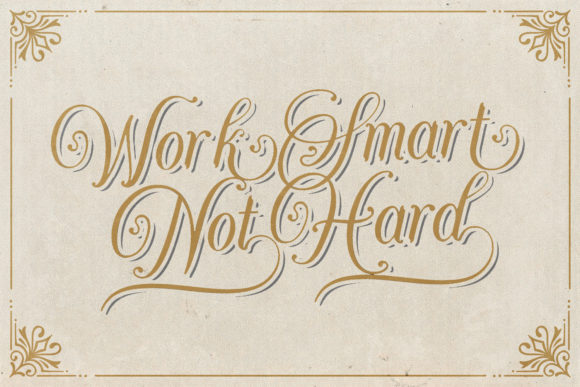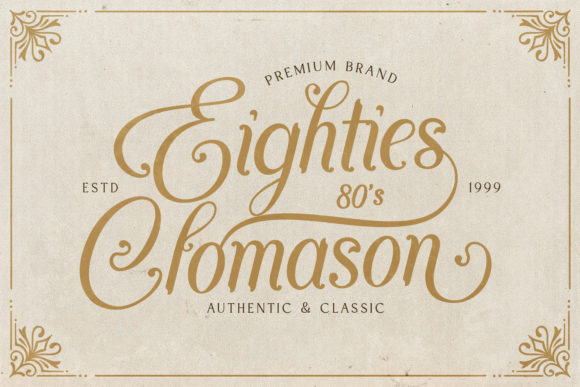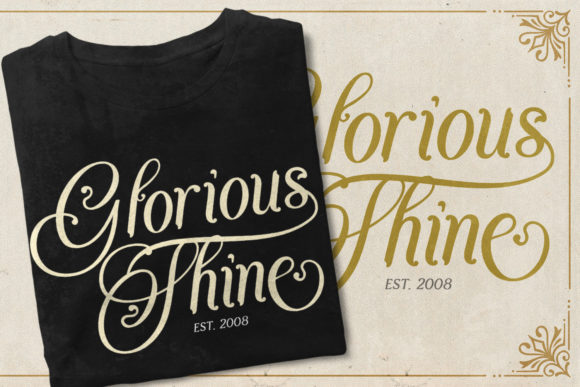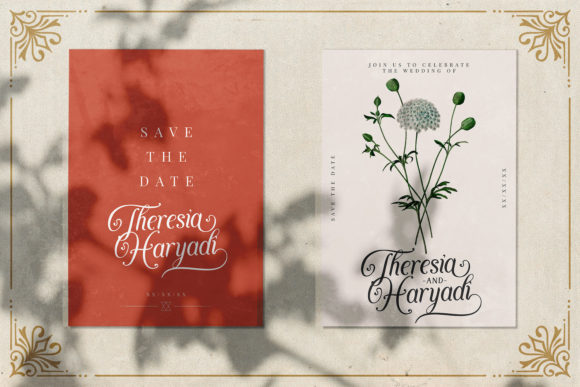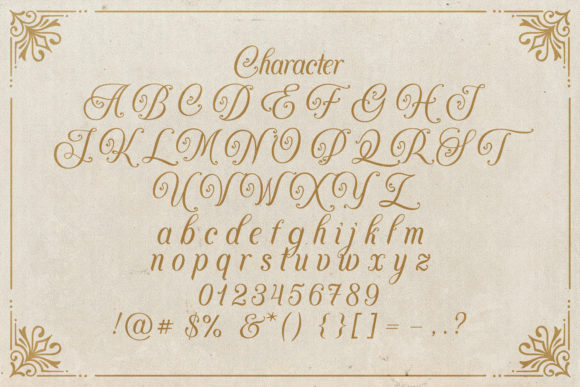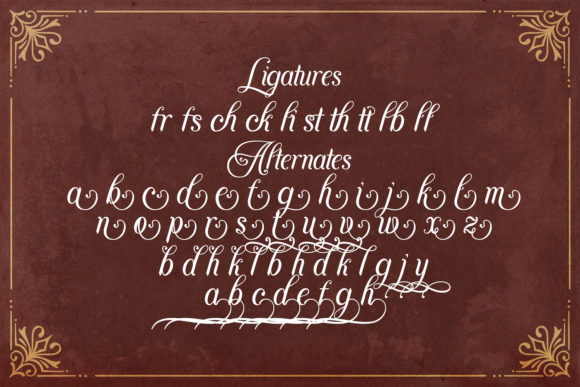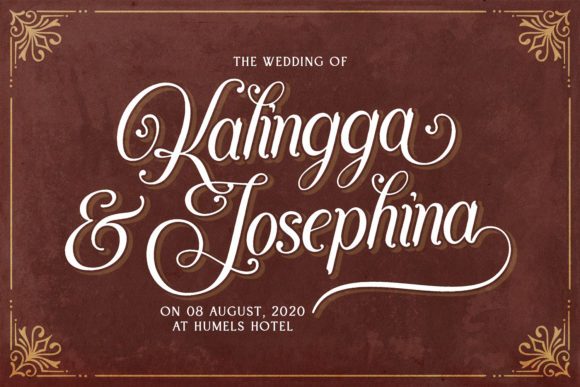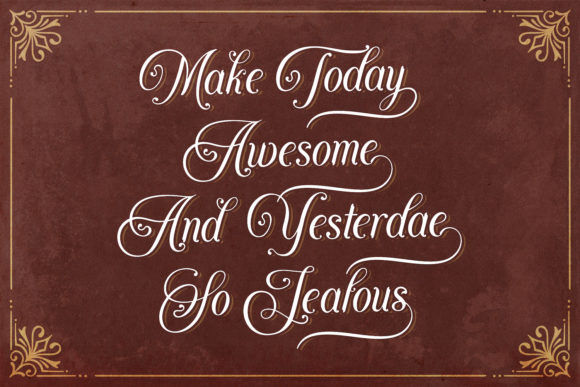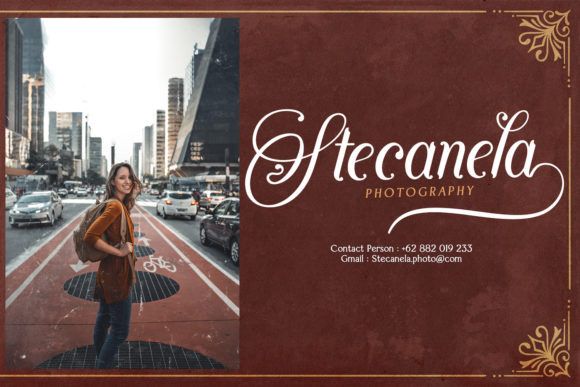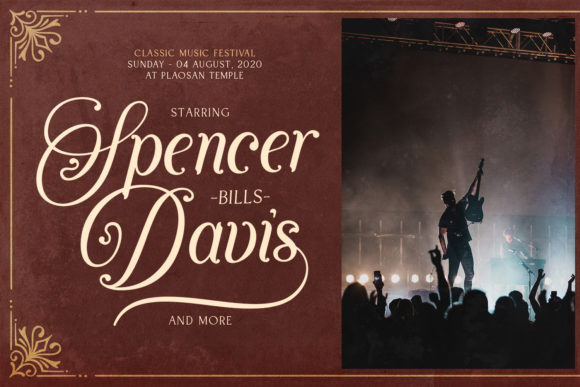
Agenda King Font
About Agenda King Font
Introducing Agenda King, a charming and elegant handwritten font that exudes sophistication and grace. This font is a true gem, thoughtfully designed to add a touch of timeless elegance to any project. With Agenda King, you’ll fall in love with its incredibly versatile style, empowering you to create gorgeous wedding invitations, beautiful stationary art, eye-catching social media posts, and so much more!
Agenda King’s charming and elegant style creates an air of refinement and allure. Each letter flows effortlessly, as if penned with the grace of a regal hand. Whether you’re working on wedding invitations, love letters, inspiring quotes, or any other creative endeavor, Agenda King adds a touch of timeless beauty that captivates and enchants.
The font’s versatility knows no bounds. As you embrace Agenda King, you’ll discover how seamlessly it complements a wide array of design projects. From elegant wedding invitations to luxurious stationary art, and from eye-catching social media posts to sophisticated branding, Agenda King’s versatility empowers you to create stunning visuals with ease.
Imagine using Agenda King to create captivating typography art. Its charming and elegant style becomes a centerpiece, adding a touch of sophistication and allure to your designs. Let your creativity flow, and watch as your artwork comes alive with timeless beauty.
For wedding invitations that exude regal elegance and timeless allure, Agenda King brings an air of grace and sophistication. Whether it’s an intimate affair or a grand celebration, your invitations will stand out as a royal invitation to cherish.
In the digital realm, Agenda King adds a touch of refinement to social media posts and blog graphics. Its elegant handwritten style resonates with viewers, creating a genuine connection and leaving a lasting impression.
Stationery art becomes a true work of art with Agenda King. Be it cards, prints, or custom designs, the font’s charming and elegant script makes your creations truly stand out, evoking a sense of luxury and beauty.
In conclusion, Agenda King is more than just a font; it’s an embodiment of elegance and charm. With its versatile style and sophisticated allure, Agenda King becomes an invaluable asset for all your design projects. Embrace the charm and versatility of Agenda King and watch as your creations exude timeless beauty and allure. Let your imagination soar in the regal embrace of Agenda King, the handwritten font that defines sophistication and grace.